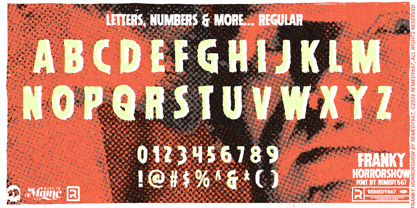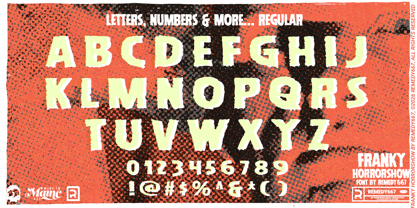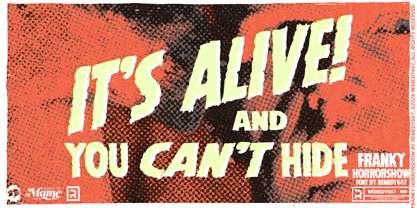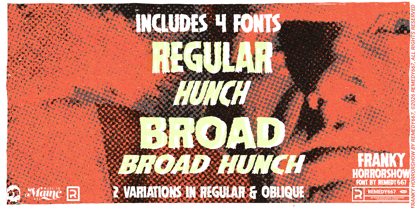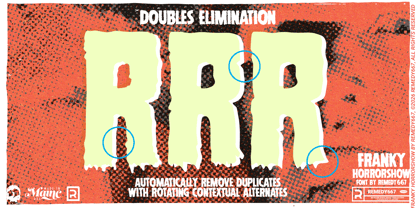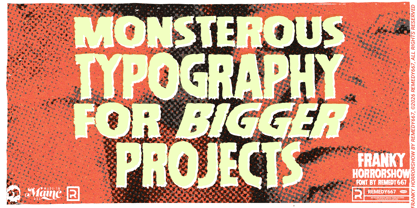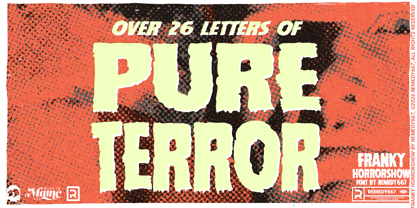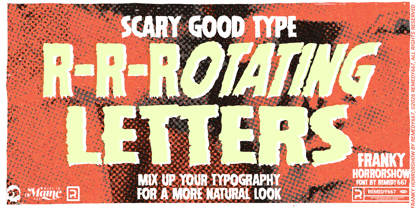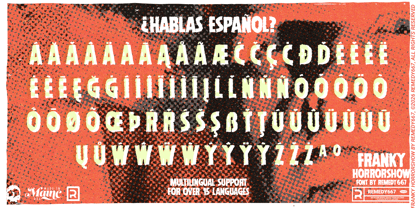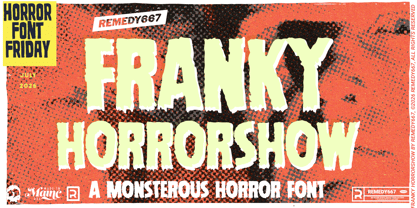
Franky Horrorshow
Die Schriftfamilie Franky Horrorshow wurde von Nick Polifroni entworfen und von Remedy667 veröffentlicht. Franky Horrorshow enthält 2 Stile. Mehr über diese Familie
It’s alive… it’s Franky Horrorshow! A monstrously bold typeface stitched together from the unforgettable poster lettering of The Horror of Frankenstein (1970). With chunky, hand-drawn sans serif forms, Franky Horrorshow has all the energy of a mad scientist. Equal parts classic horror and untamed chaos.
Whether you’re assembling monster movie posters, merchandise, Halloween graphics, or bold subheadings, Franky Horrorshow supplies a spooky personality with vintage horror appeal. Rotating characters keep each word looking naturally hand-crafted, Franky Horrorshow includes 4 fonts that thrill. Get it, before it gets you.
• Inspired by classic monster movie lettering
• Bold hand-drawn sans serif style for impactful titles and subheadings
• Rotating characters for natural, varied typography
• Multilingual support for worldwide monster creations
• Includes 4 fonts for more variety